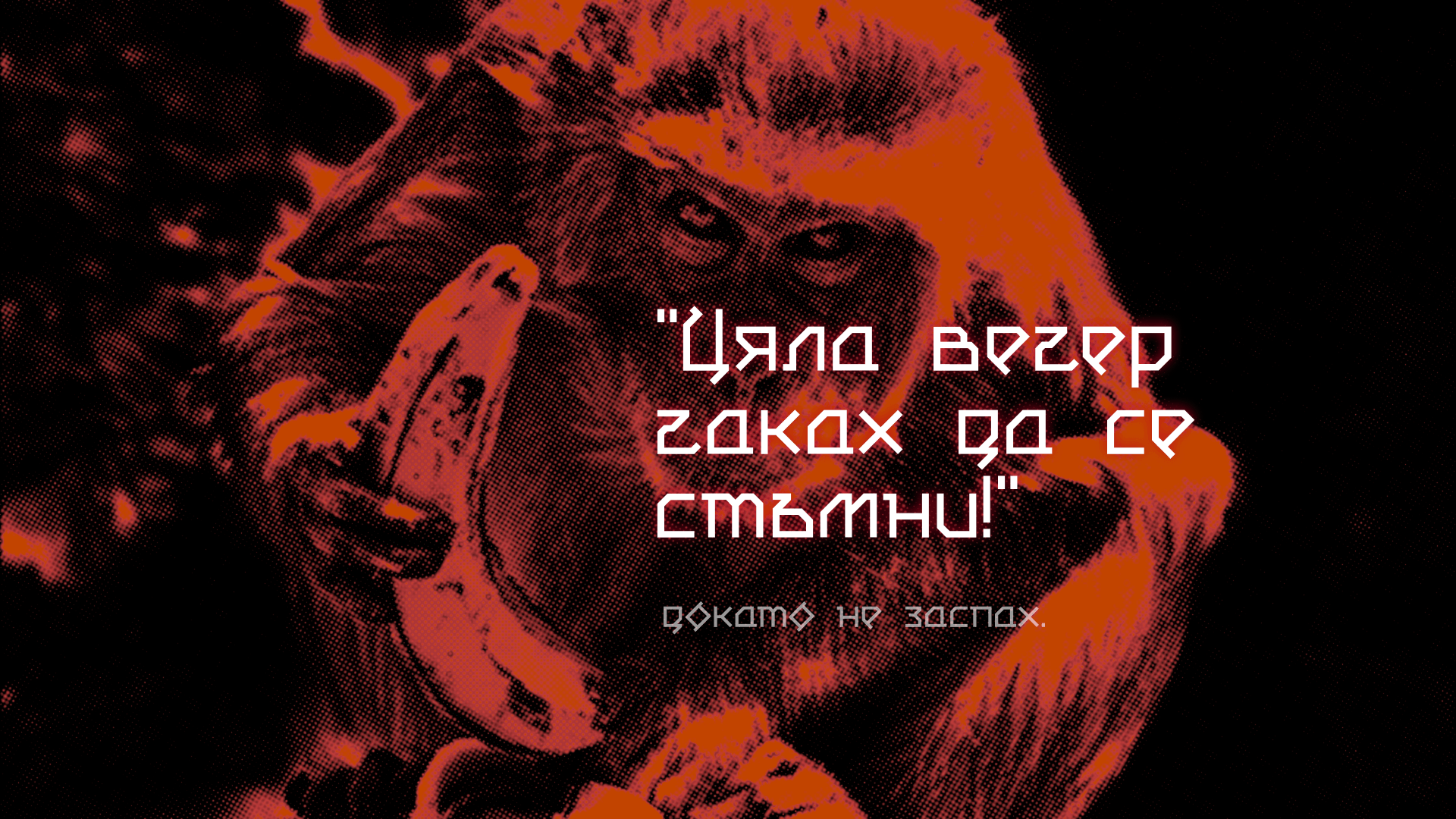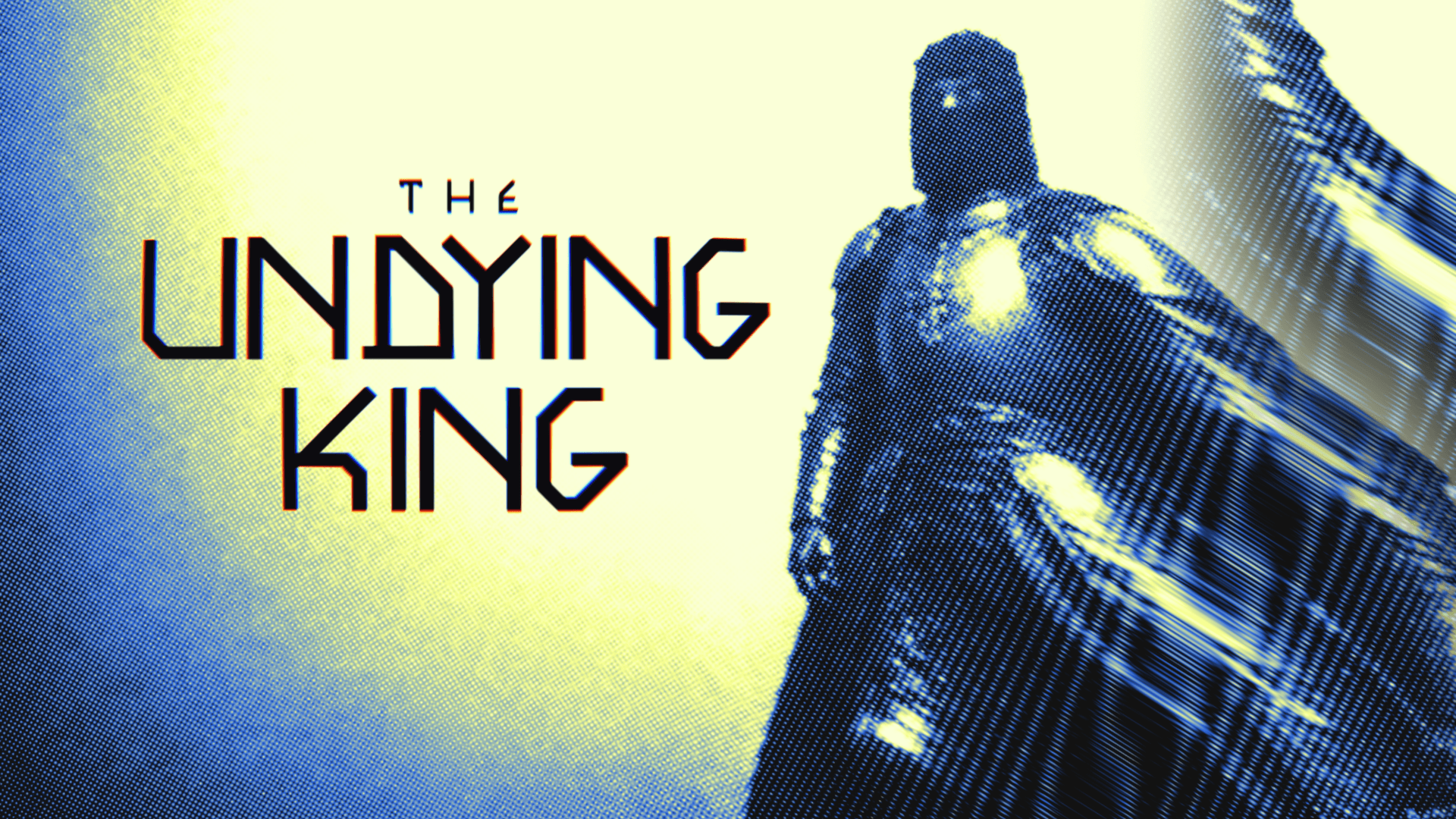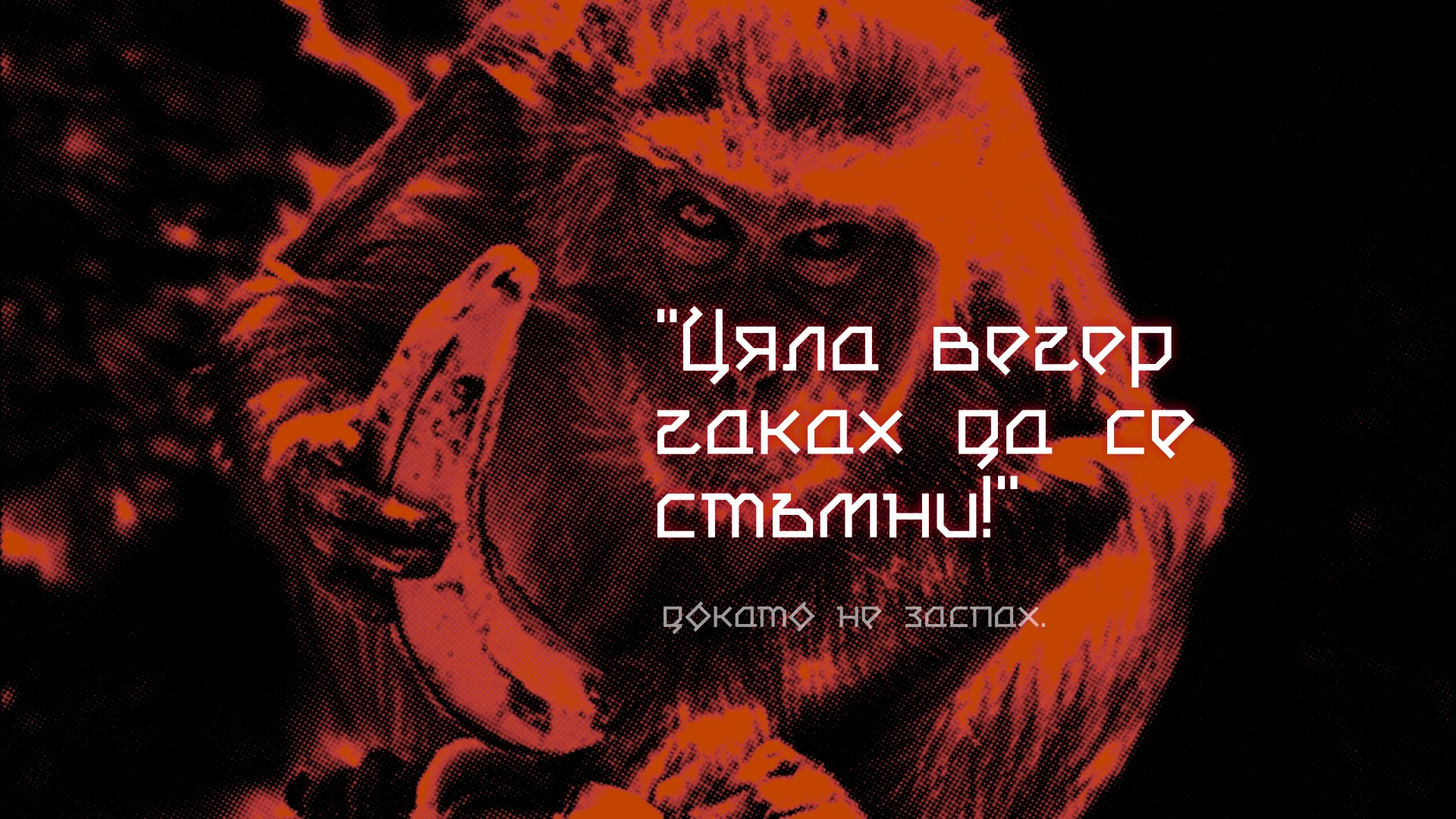
| Family Name | Jezter |
| Designed By | WORSHIP |
| Category | display |
| Languages | Latin and Cyrillic |
Jezter is a typeface inspired by the promised sci-fi future we never had. Its shapes lean into weird, techno angles built on a futuristic base - familiar enough to read as sci-fi, strange enough to feel slightly off.
Its rhythm represents laughter in its jagged cross-sections and dynamic feel, strongly inspired by sci-fi anime letterforms. The mix of technical precision and jagged humour gives Jezter a playful but strict personality.
Jezter supports both lowercase and uppercase letters across Latin and Bulgarian Cyrillic alphabets, making it a solid pick for multilingual sci-fi and retro-futuristic branding. It can be used for dark sci-fi movie posters, book cover design, and marketing creatives.